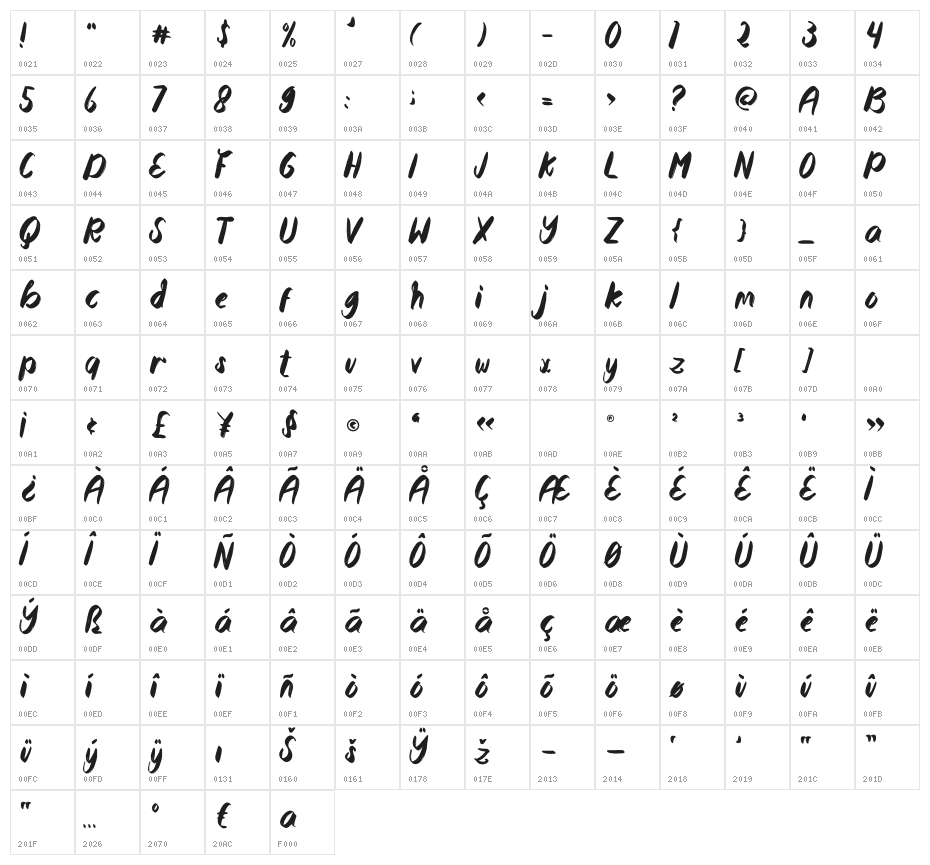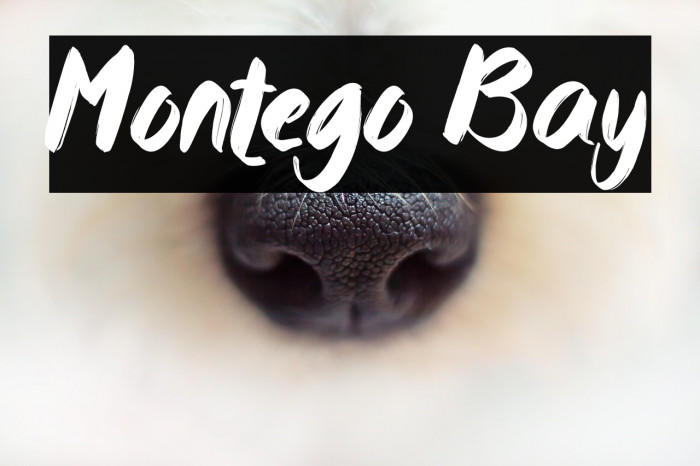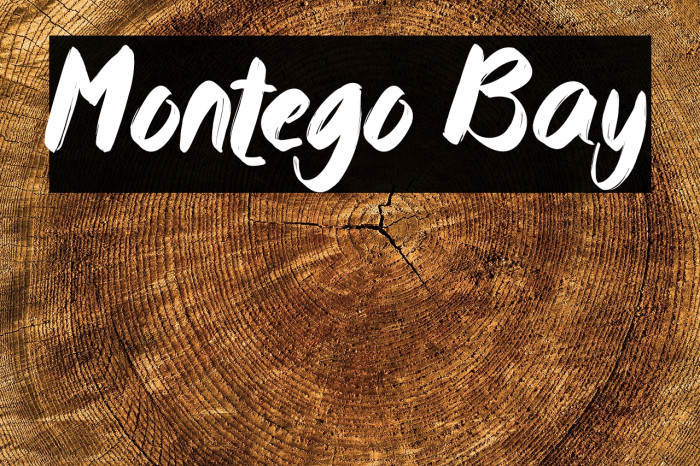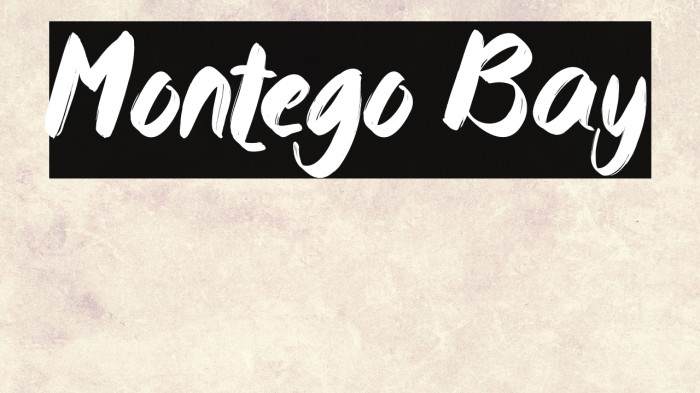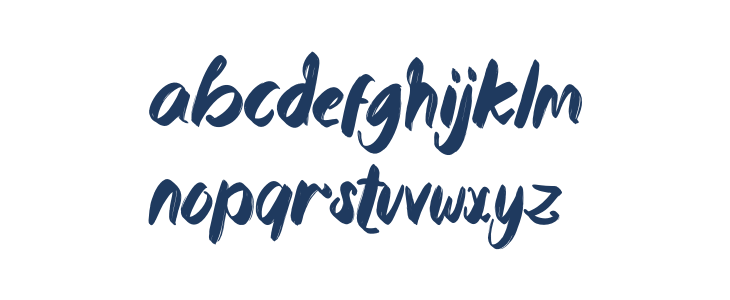
Montego Bay Font
Montego Bay Description
This font exhibits a bold, expressive style with a brush-like texture, giving it a dynamic and energetic appearance. The strokes are thick and varied, creating a sense of movement and fluidity. The uppercase and lowercase letters are consistent in their artistic flair, with some letters featuring unique flourishes and curves. The numbers maintain the same boldness, ensuring readability while retaining the font's artistic nature. Special characters are also included, matching the overall aesthetic. This font is ideal for projects that require a personal, handcrafted touch.